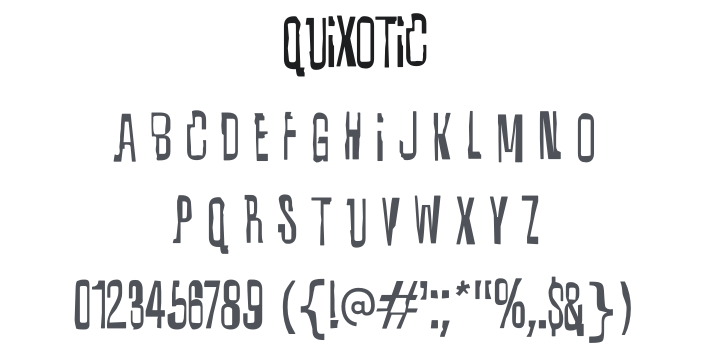
Quixotic Font
About Quixotic
Quixotic is a tall, condensed display typeface with bold, slightly warped letterforms that look structurally compromised — edges chip and crumble, strokes wobble unevenly, giving each character a derelict, weather-beaten quality as if the signage has been neglected for decades. Despite the decay, its strong vertical proportions retain legibility. Perfect for abandoned-place aesthetics, western ghost town designs, horror titles, gritty urban branding, and post-apocalyptic game graphics.